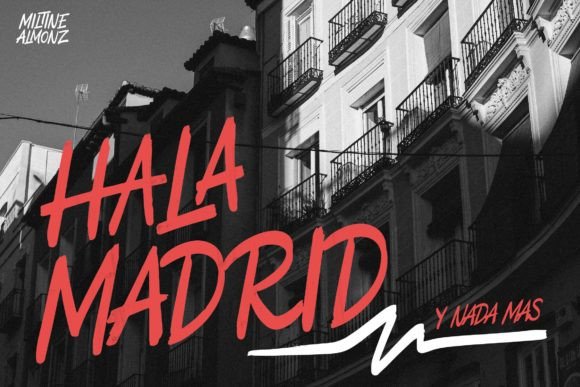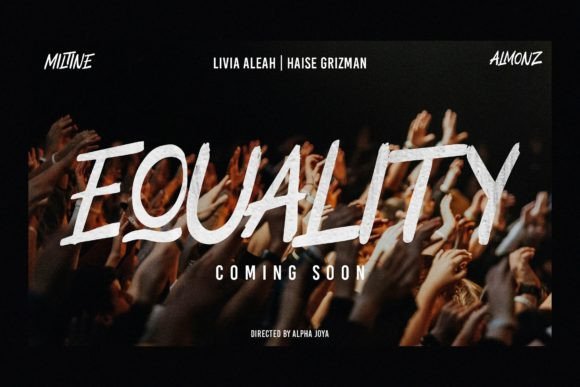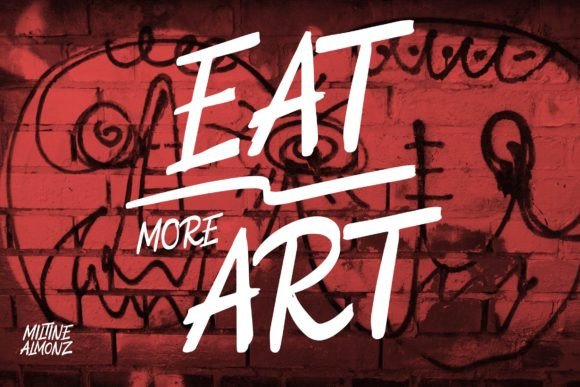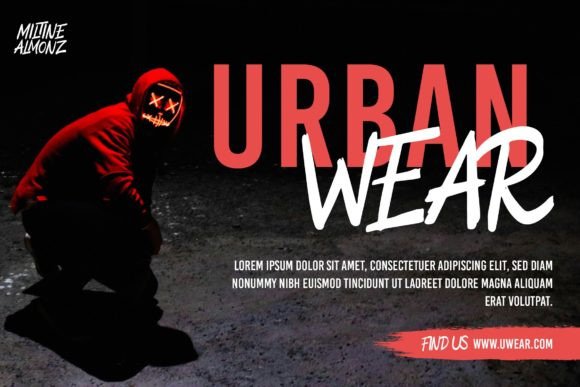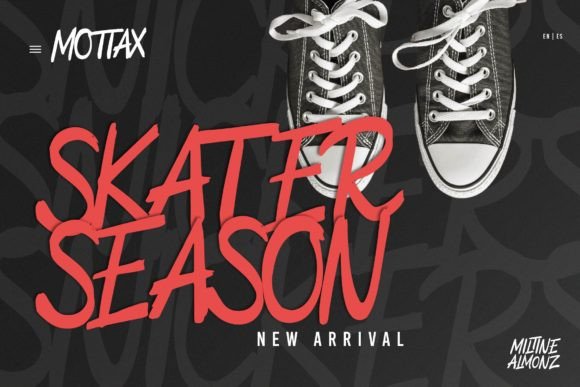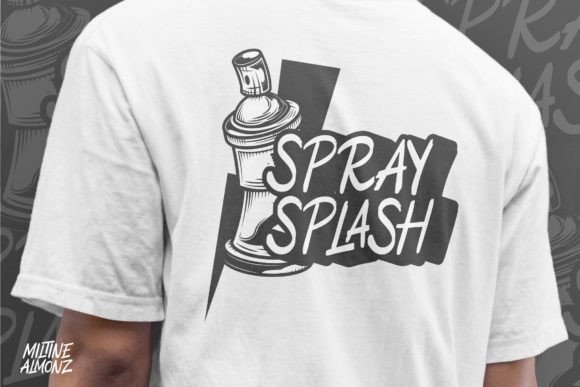
Introduction to Miltine Almonz Font Font
Fonts play a crucial role in design, and the Miltine Almonz Font font is a typeface that brings both character and versatility to any project. Whether you’re working on a branding project, a website, or a print design, the Miltine Almonz Font font offers a unique style that can elevate your work.
Miltine Almonz is a display font that looks like it was written with a marker.
It has a bold and playful style, making it perfect for fun and creative projects .
Key Features of Miltine Almonz Font Font
• ✅ Includes a wide range of glyphs and characters
• ✅ Ideal for logos, branding, websites, and print
Why Choose Miltine Almonz Font Font?
The Miltine Almonz Font font is more than just a typeface – it’s a design tool that helps you communicate your message with style and clarity. Its unique character set and versatile design make it suitable for a wide range of applications, from elegant invitations to bold headlines.
With its carefully crafted letterforms and balanced proportions, the Miltine Almonz Font font ensures readability and visual appeal across all mediums.
What makes Miltine Almonz Font font special?
The Miltine Almonz Font font stands out with its unique design, exceptional readability, and versatility across various design applications.